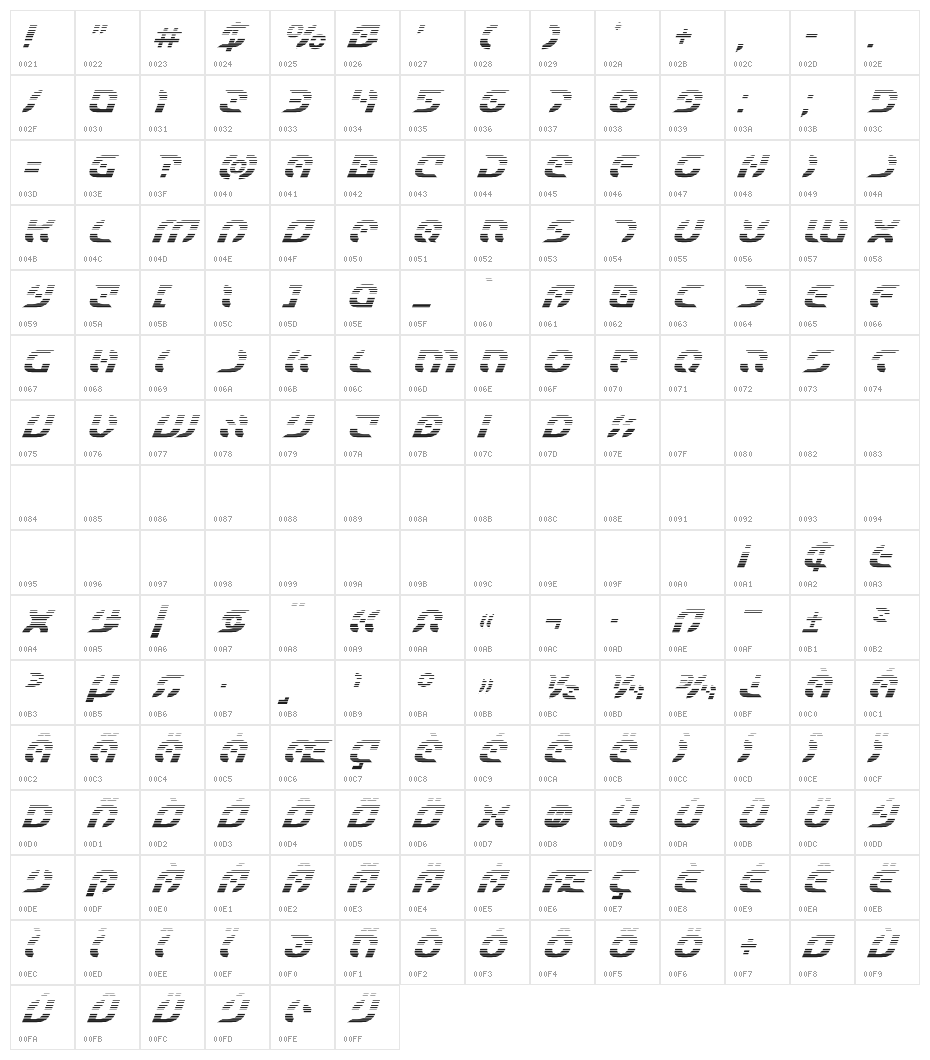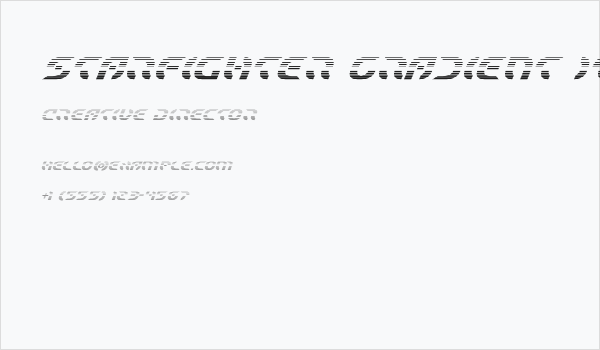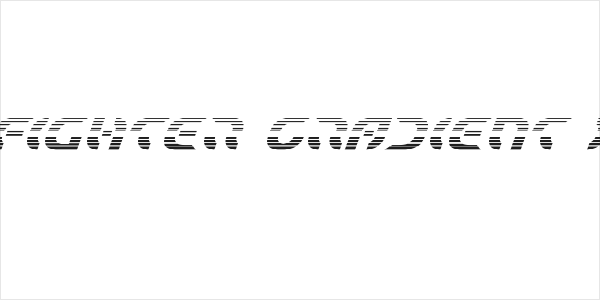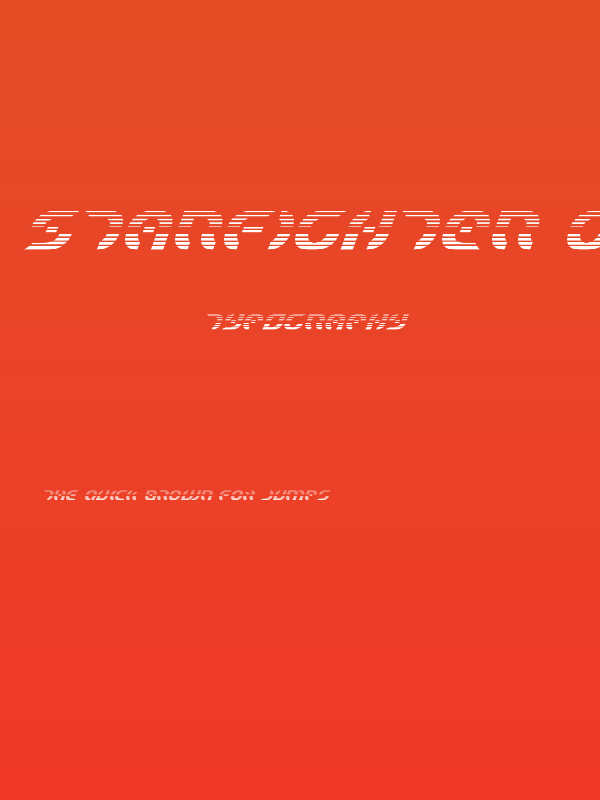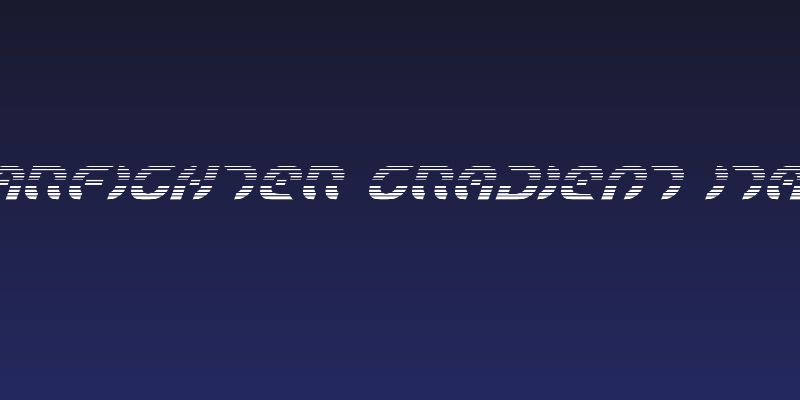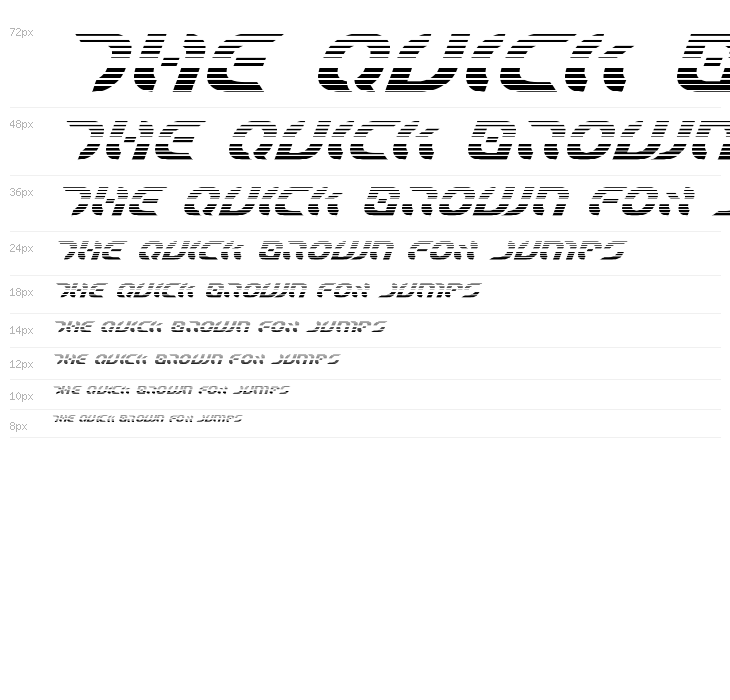
Starfighter Gradient Italic Font
Starfighter Gradient Italic Description
This font features a futuristic and dynamic design, characterized by its italicized, gradient-like appearance. The letters are composed of horizontal lines that create a sense of motion and speed, making it ideal for projects that require a modern and energetic look. The uppercase and lowercase letters maintain a consistent style, with sharp angles and a streamlined form. The numbers and special characters follow the same aesthetic, ensuring a cohesive visual experience. The font's unique style is perfect for creative projects that aim to capture attention and convey a sense of innovation.
| Proposed Projects | Ideal for sci-fi themed designs, video game titles, tech branding, and futuristic posters. |